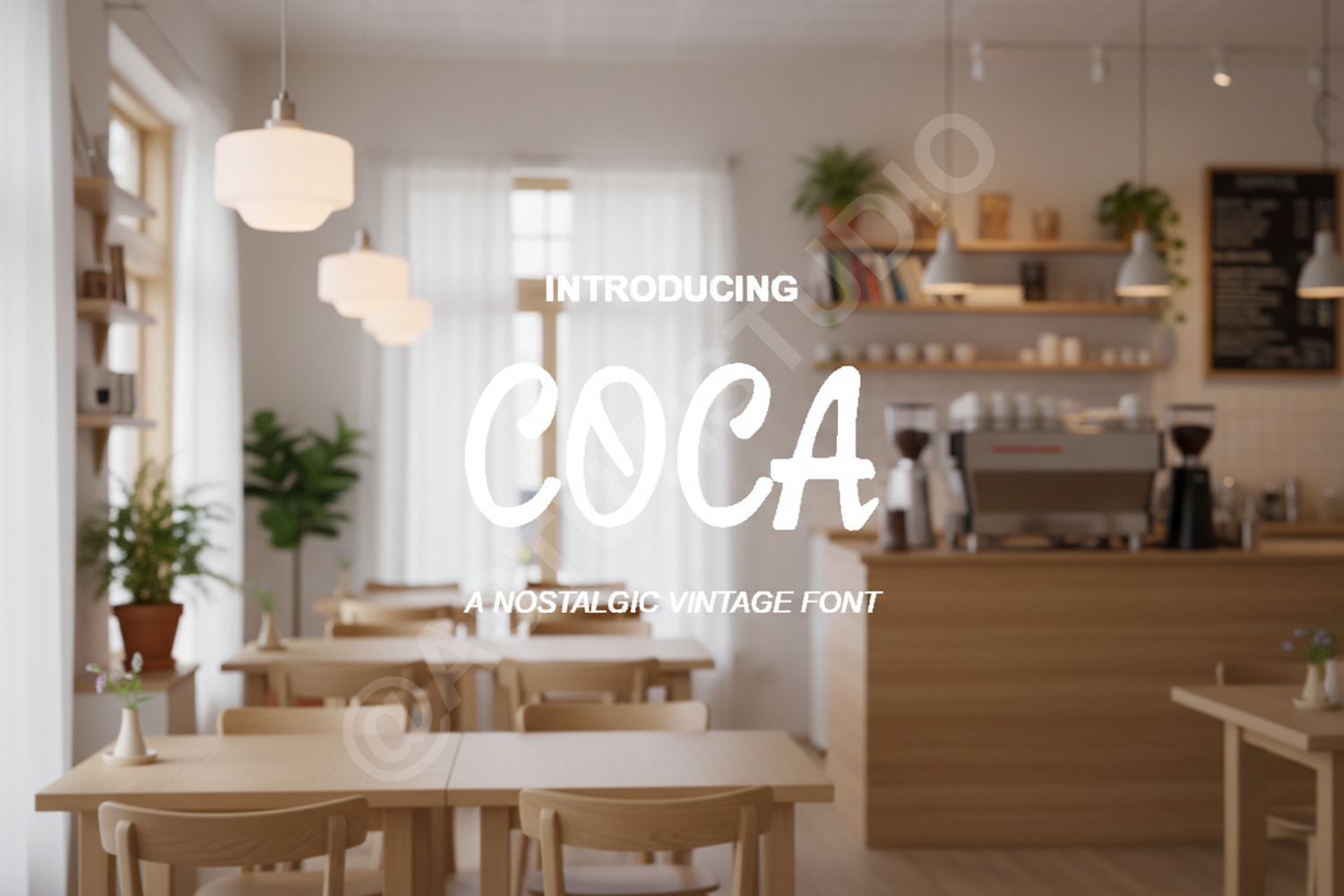
Coca - Modern Minimalist Sans Serif Font
Coca
Elevate your design projects with Coca, a premium sans-serif font that embodies modern sophistication and effortless style. Designed with clean lines and balanced proportions, Coca offers a versatile aesthetic that works beautifully across both digital and print mediums. Whether you are crafting a high-end brand identity or a sleek website interface, this typeface provides the professional edge your work deserves.
- Comprehensive Multilingual Support
- Full set of Numerals and Punctuation
- Luxury Branding and Visual Identity
- High-fashion Editorial and Magazine Layouts
- Minimalist Logo Design and Wordmarks
- Professional Web Design and UI/UX Projects
- Modern Product Packaging and Labels
- Sophisticated Social Media Content and Advertising